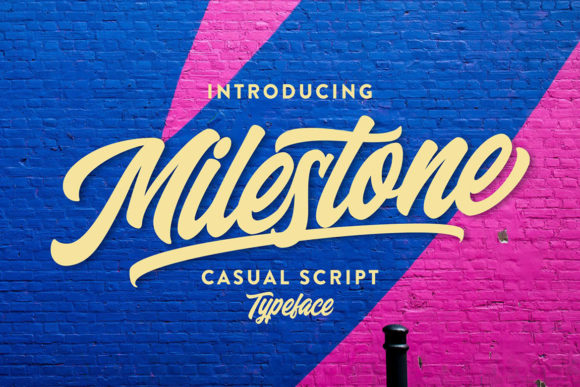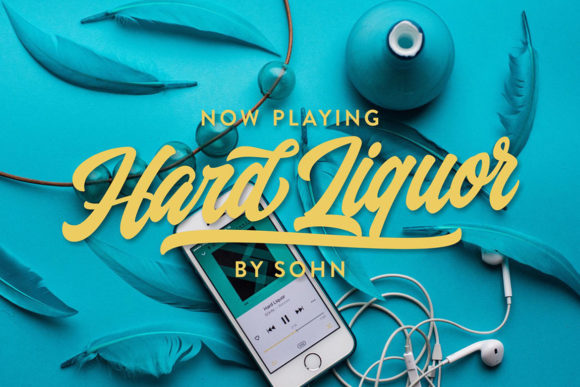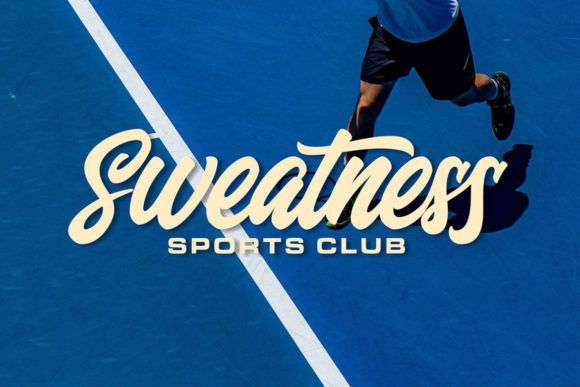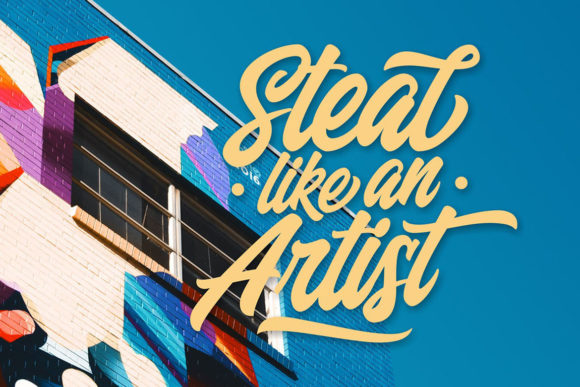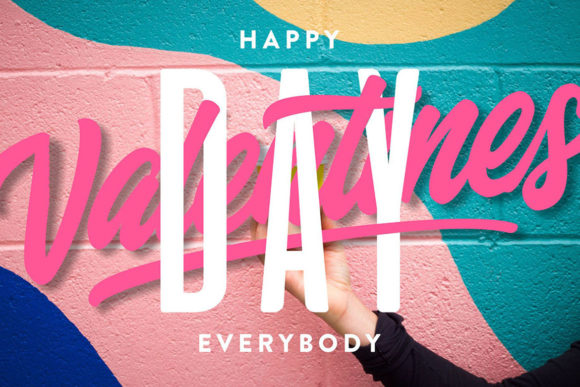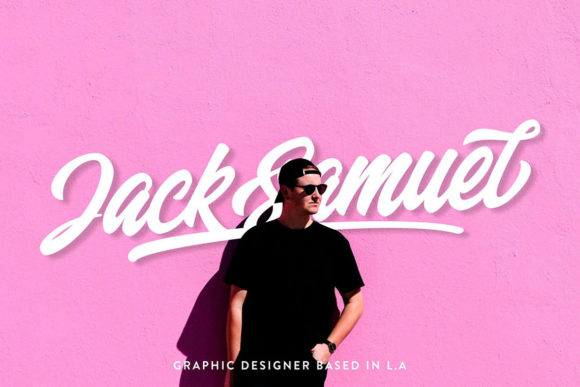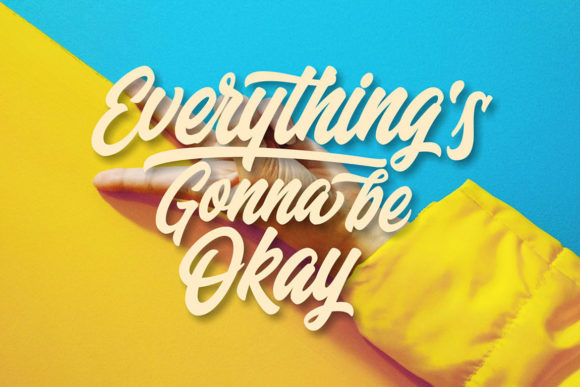
Milestone Font
About Milestone Font
Milestone is a cute handwritten font. It features stylistic alternates and ligatures that will take your designs to the next level. It will elevate a wide range of design projects to the highest level, be it branding, headings, wedding designs, invitations, signatures, logos, labels, and much more!